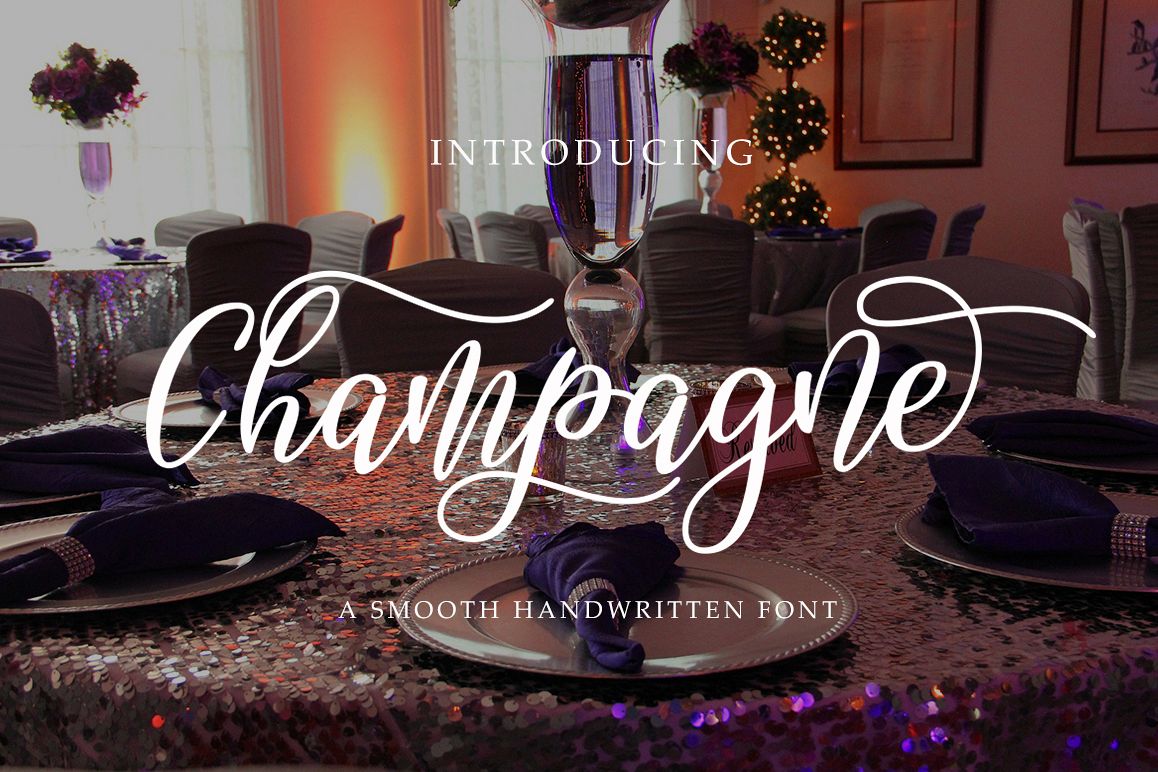
Champagne script
Champagne script is a beautiful and elegant  script. Perfect for designing branding, blog logo, website logo, print ads, book covers, film covers, apparel, cards, logos, posters, etc.
Opentype features gives you more alternatives in designing.